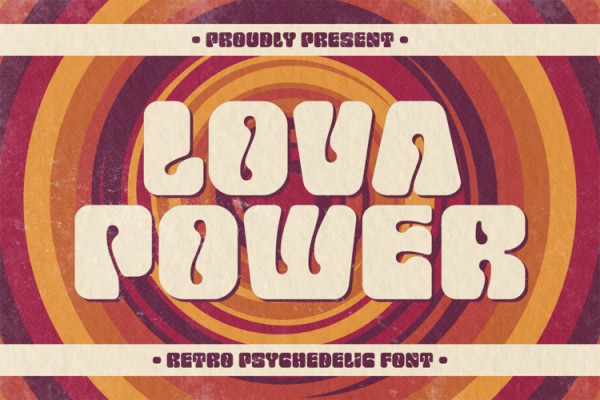
Lova Power Font
Lova Power Font, This font is perfect for stickers, retro projects, craft projects, shirts, svg designs, procreate designs, branding, blogs, logos, invitations and more!